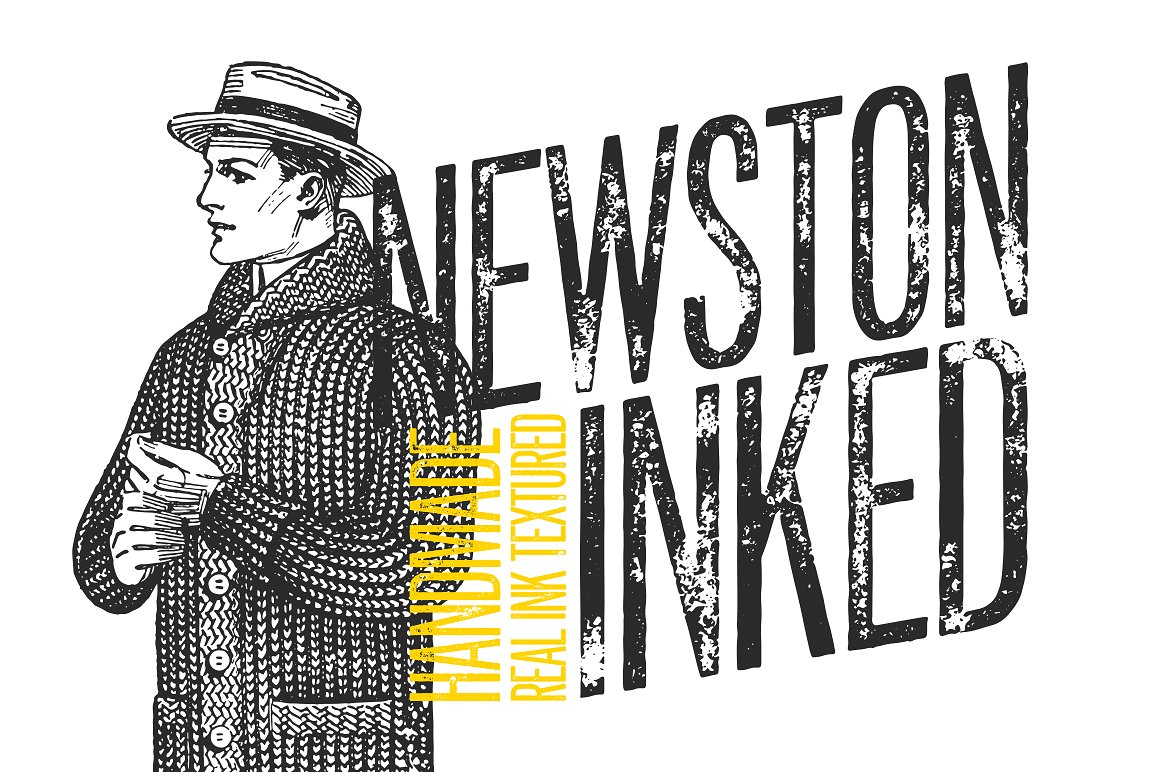
Introducing Newston Inked – an inkable vintage typeface handmade out of authentic ink and passion.
Newston Inked was made to give a sense of century old printing and worn ink impression. It was handmade with real ink and muddy fingers by me.